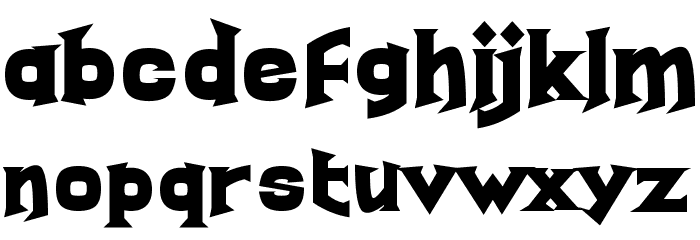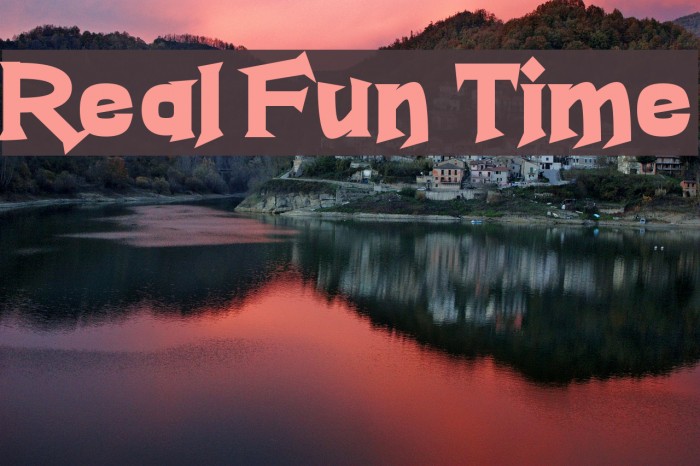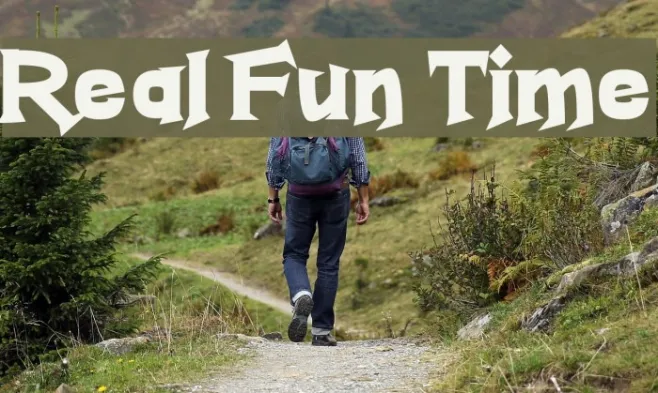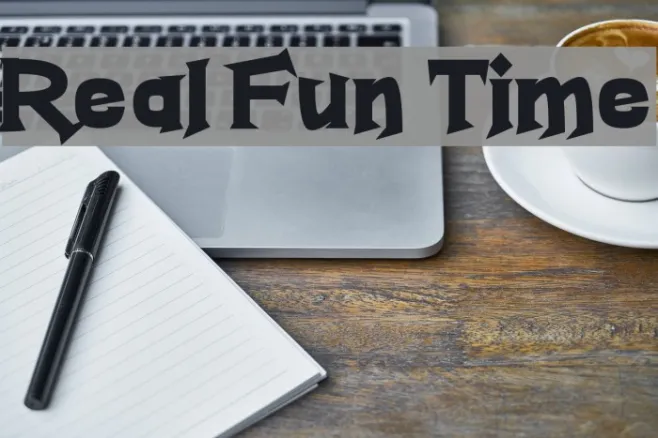
Real Fun Time Font
This font features a bold and dynamic style with sharp, angular edges and a slightly aggressive appearance. The uppercase letters are particularly striking, with exaggerated serifs and a strong presence. The lowercase letters maintain the same boldness, offering a consistent look throughout. Numbers and special characters follow the same design principles, ensuring uniformity across all glyphs. The font's unique style makes it stand out, with a modern twist on traditional serif elements, giving it a distinctive and eye-catching appearance.
A bold, angular font with sharp edges and a dynamic presence.
- Proposed Projects: Ideal for use in posters, logos, and branding materials that require a strong, impactful visual statement.